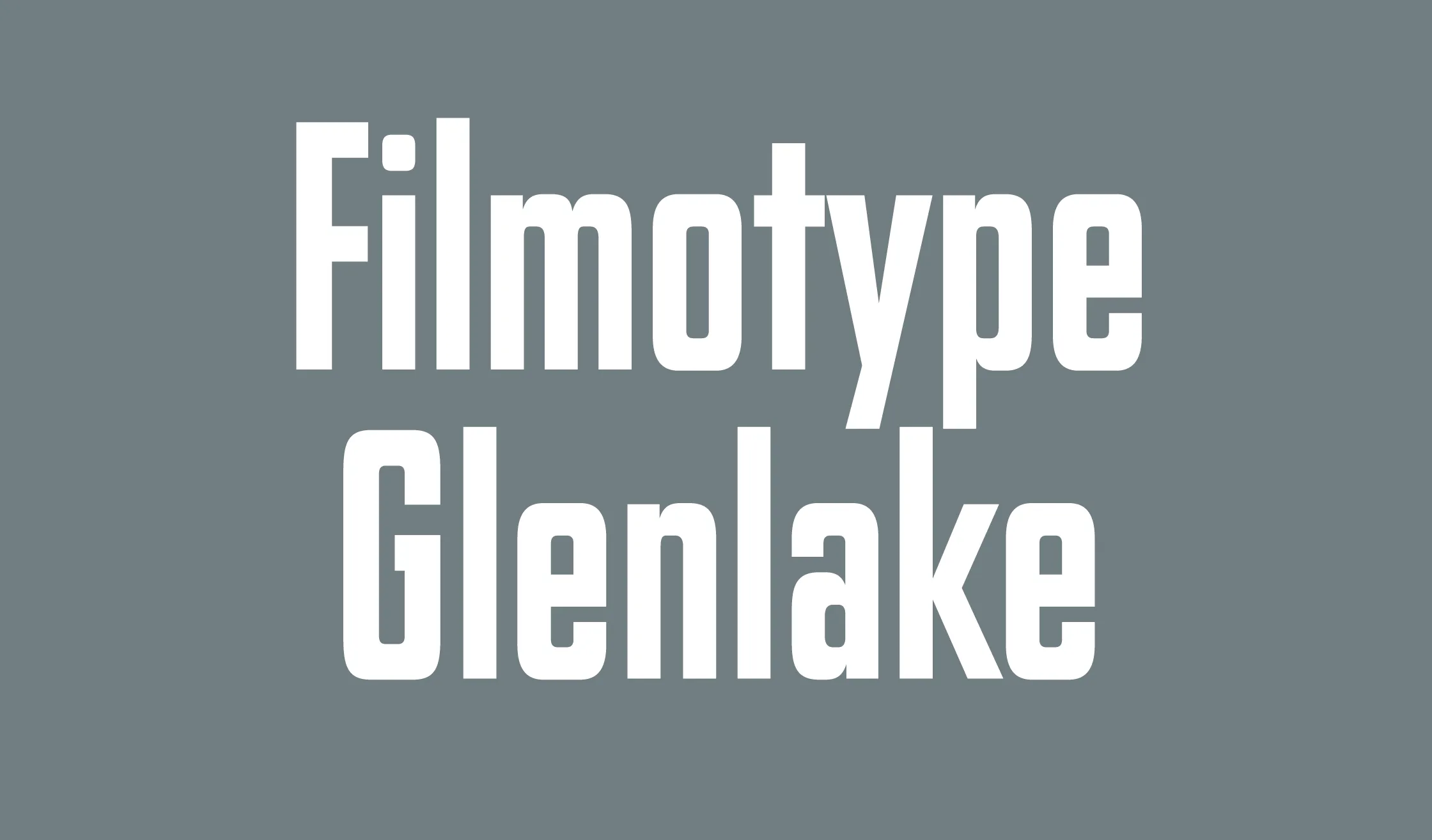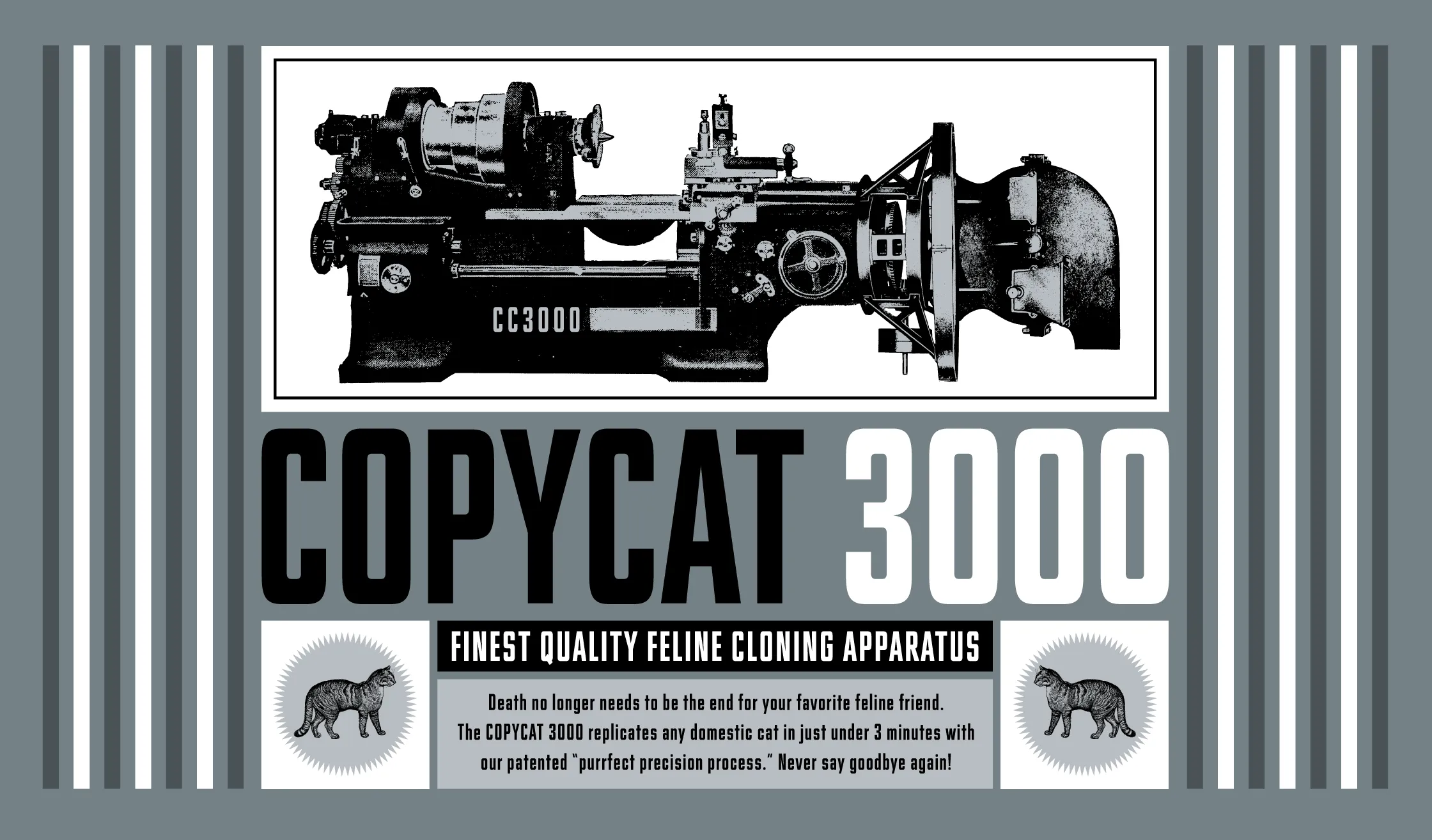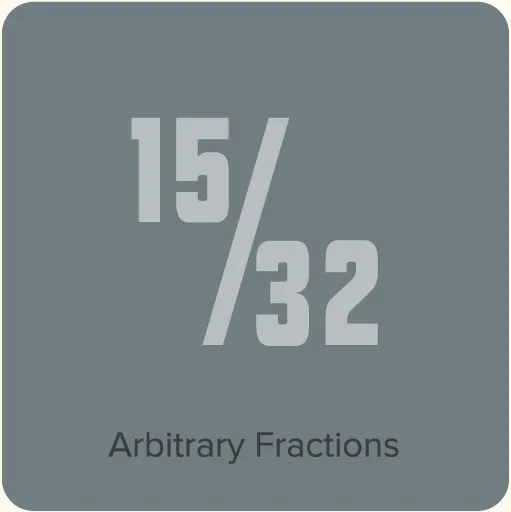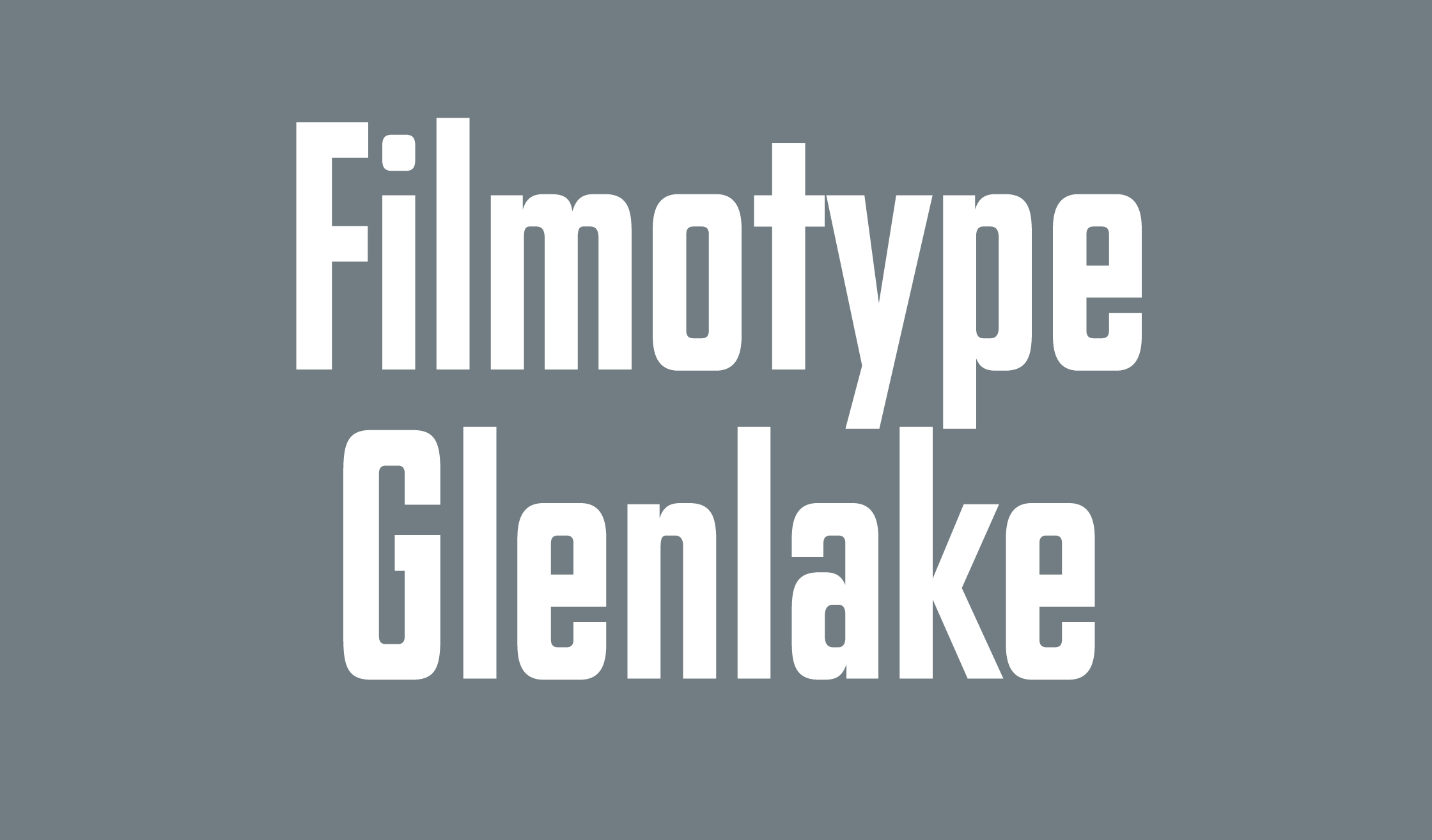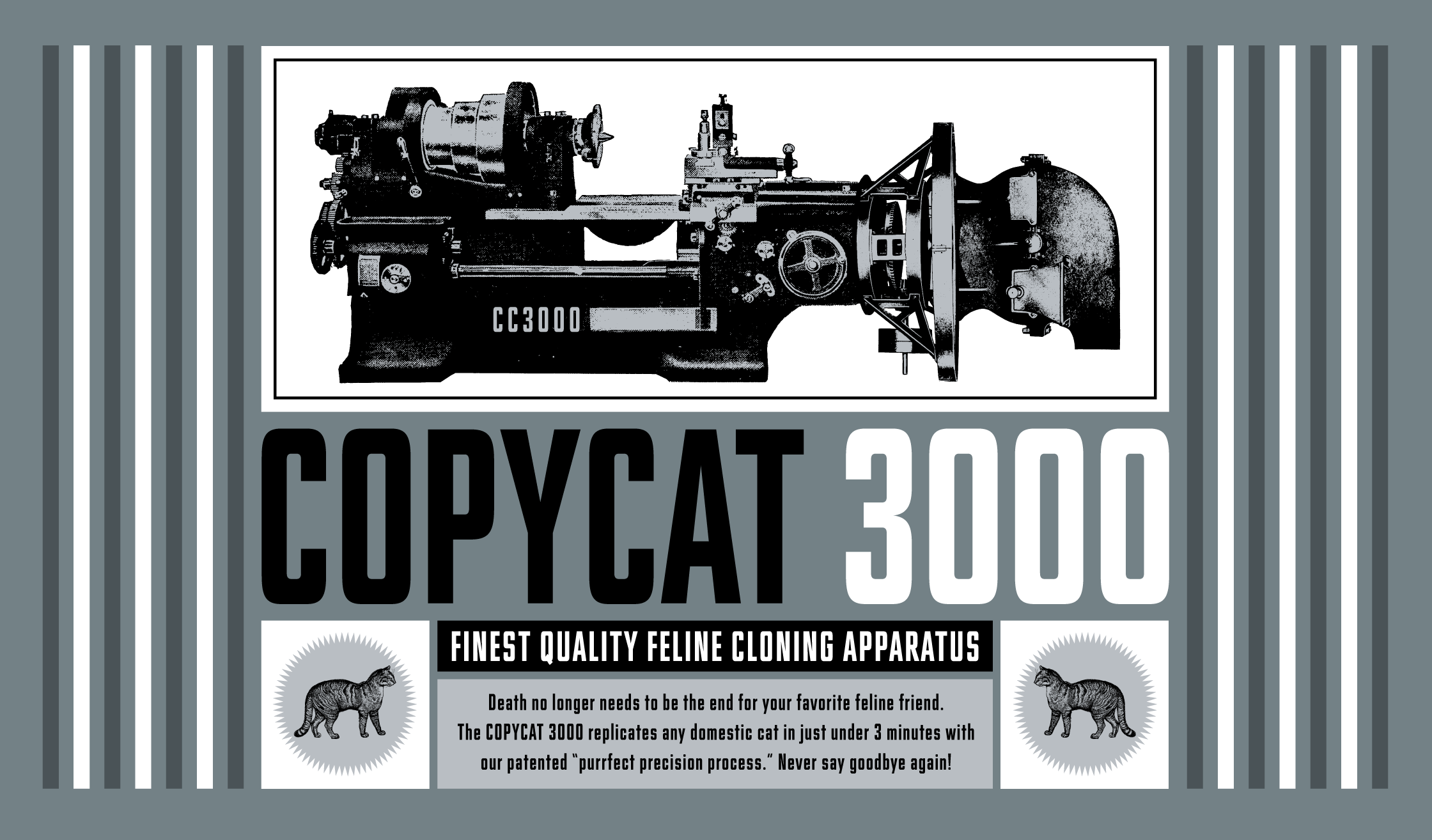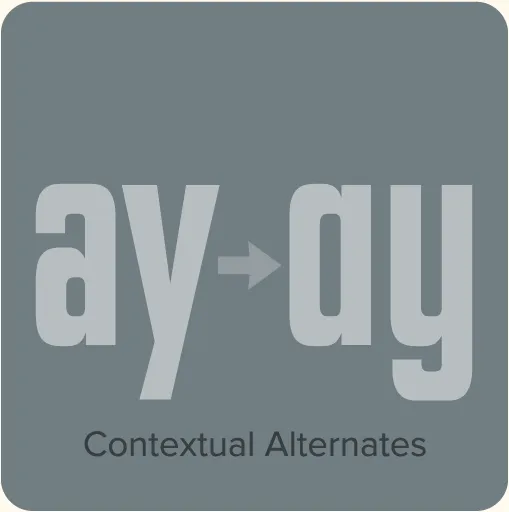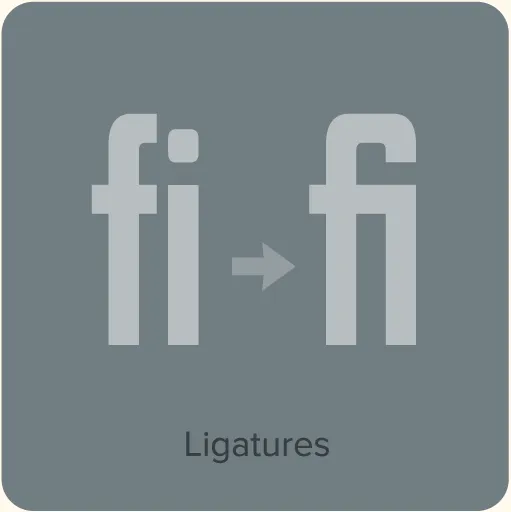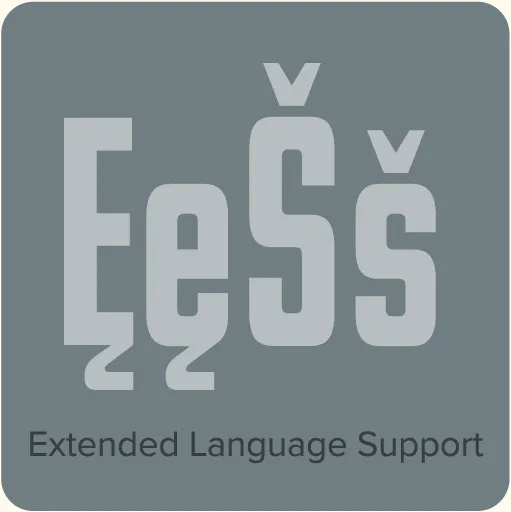
Filmotype Glenlake (2007, for Filmotype) is a classic American gothic originally designed and released in 1955. Filmotype Gem is part of a range of compact sans serif fonts whose names begin with the letter “G” (a Filmotype convention). Glenlake is unique in that series, having a very rectangular look. To my eye, it looks like a forerunner to faces like Compacta, but with its own unique characteristics, such as the prominent whiplash spine on the S, Futura-like construction, and a subtle hand-lettered feel.